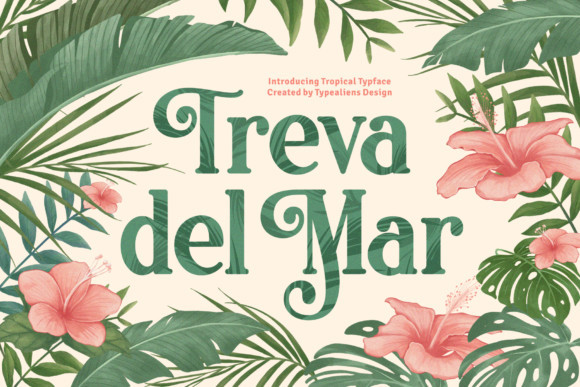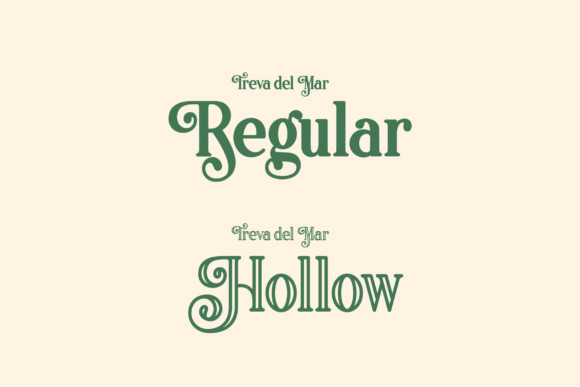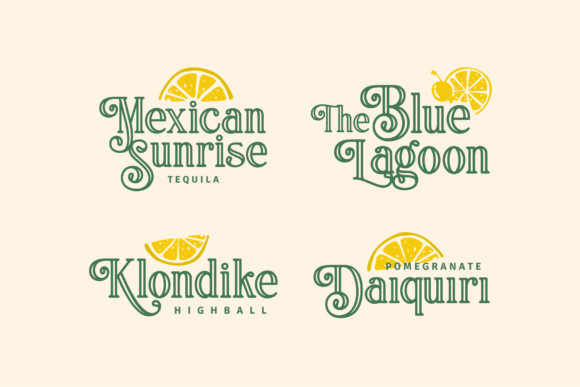
Treva del Mar Font
Treva Del Mar is an exquisite display font, masterfully designed to become a true favorite. It delivers an incredible unique and vintage aesthetic. Use this font and elevate your projects to the highest levels!